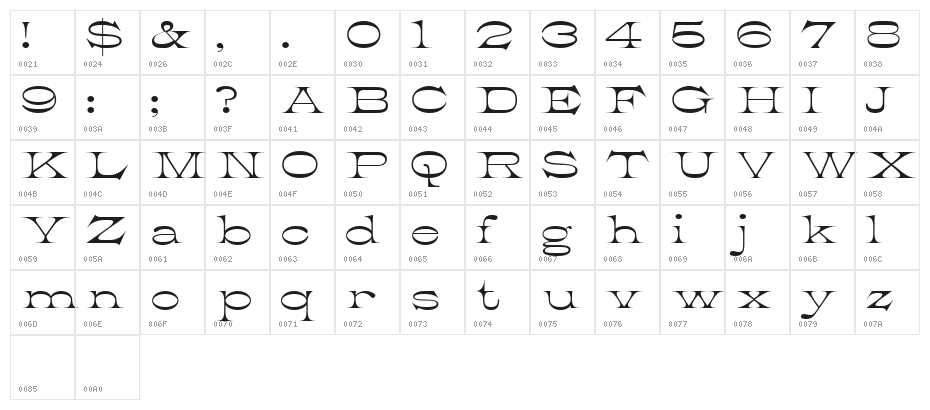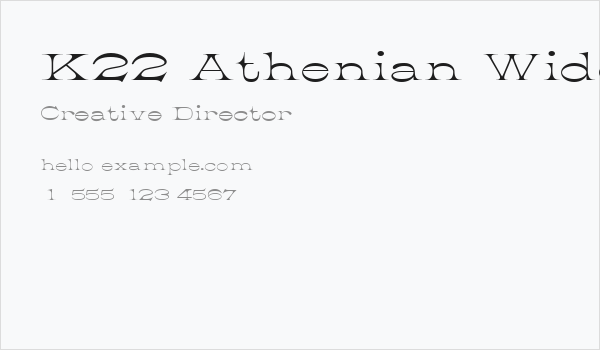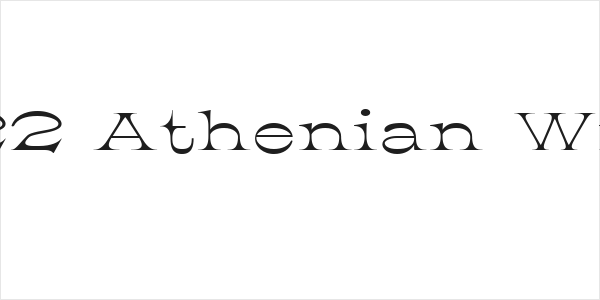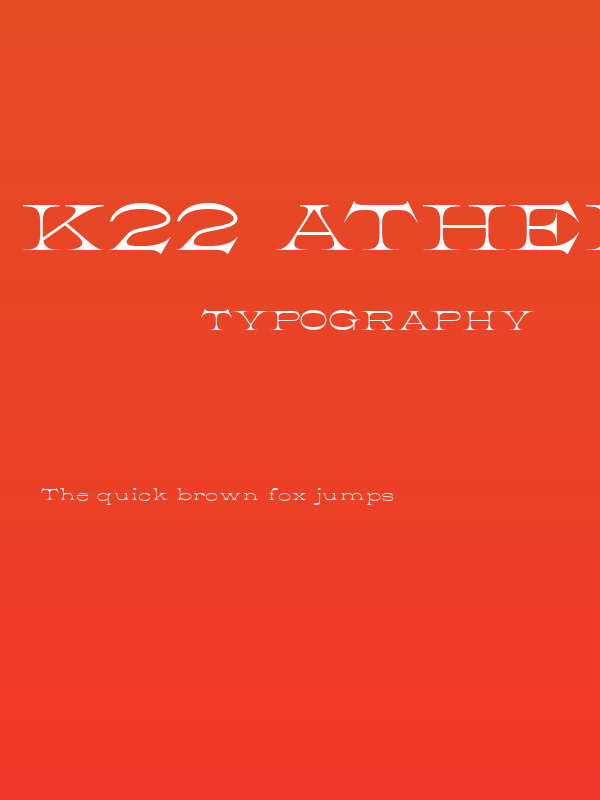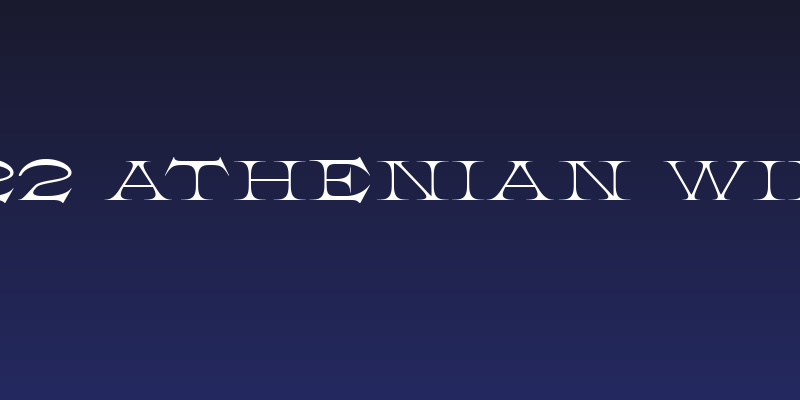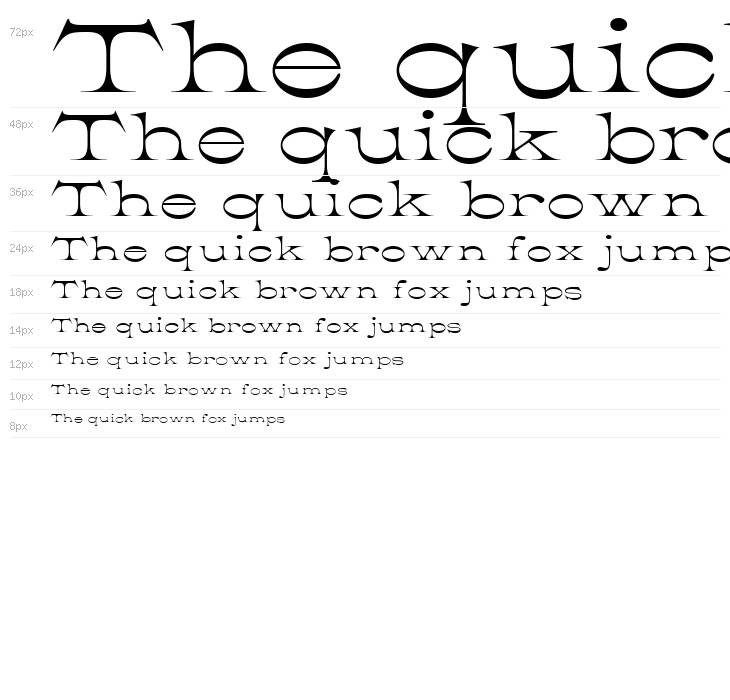
K22 Athenian Wide Font
K22 Athenian Wide Description
This font features a distinctive and bold design with sharp, angular serifs and a wide stance. The uppercase letters are particularly striking, with exaggerated serifs that give them a dramatic flair. The lowercase letters maintain a consistent style, offering a harmonious blend with the uppercase set. Numbers are equally bold, with a unique style that complements the overall aesthetic. Special characters are designed with the same attention to detail, ensuring a cohesive look across all glyphs. The font's wide design and high contrast in stroke thickness make it stand out, ideal for making a strong visual impact.
| Proposed Projects | Ideal for headlines, posters, branding, and any project requiring a strong visual impact. |